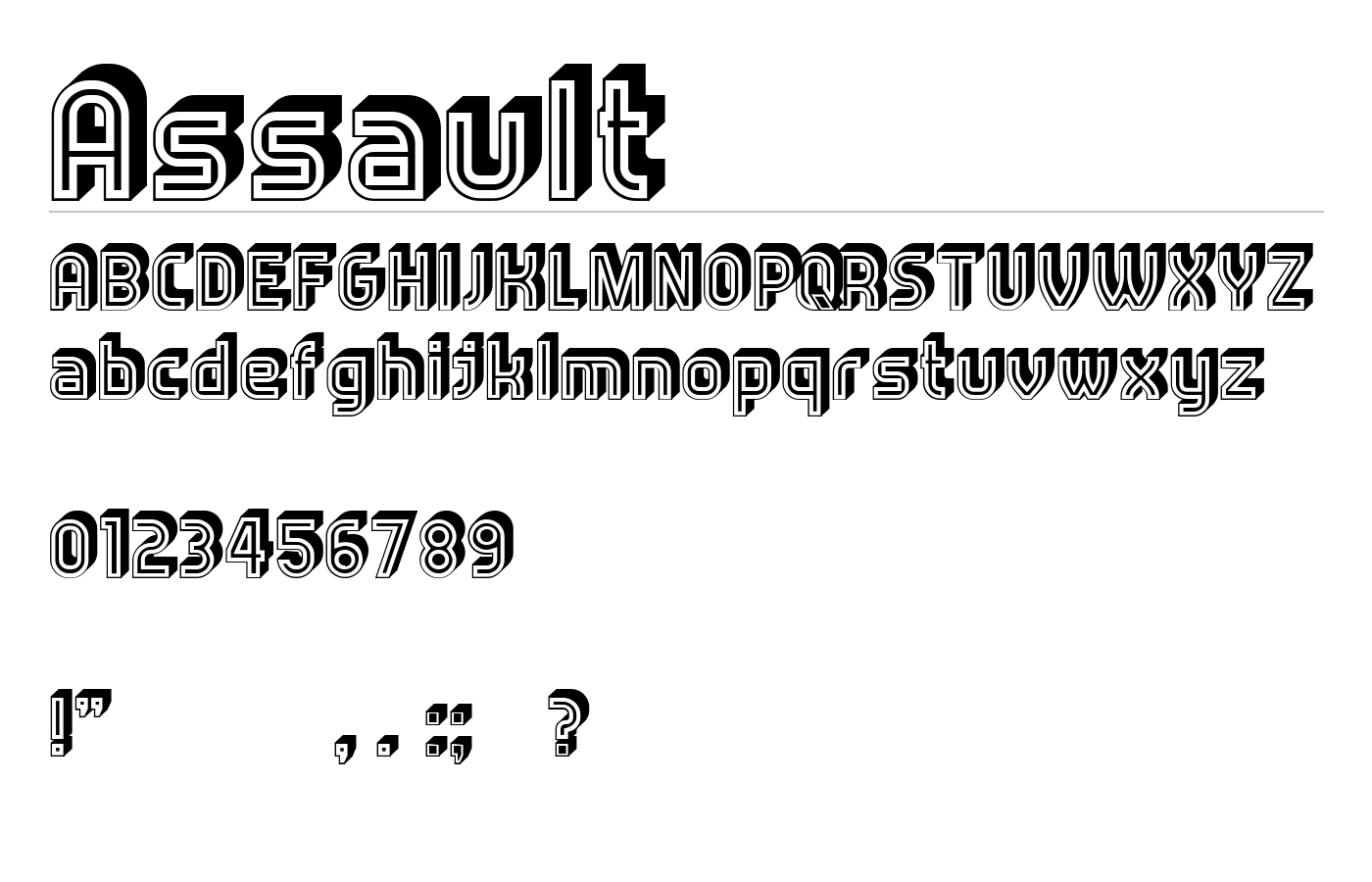
Assault Font is a bold, geometric sans serif with a striking 3D shadow effect that gives it a strong, dynamic presence. Its clean lines, high contrast between the outlined characters and solid shadows, and slightly condensed letterforms make it ideal for eye-catching headlines, posters, and branding that require a modern, edgy, and impactful look. This font works especially well for designs aiming to convey strength, energy, and a futuristic vibe.
Assault Font
About Assault Font
| Font family | Assault Font |